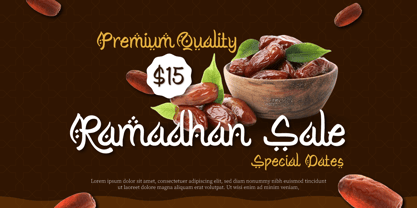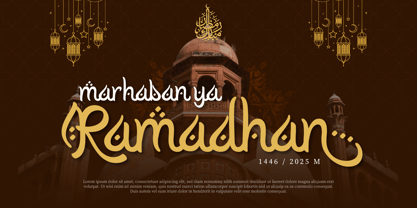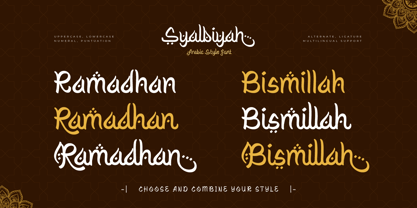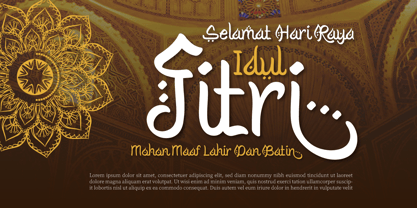
Syalbiyah
by Trabas Kriya
The Syalbiyah Font Family was designed by Murozakul Akhsan and published by Trabas Kriya. Syalbiyah contains 1 styles. More about this family
Syalbiyah - Arabic Style Font is an elegant and beautifully crafted typeface that blends traditional Arabic calligraphy with a modern touch. Its graceful and flowing letterforms make it perfect for branding, invitations, posters, and any project that aims to capture the essence of Arabic culture with a refined, contemporary style. Syalbiyah is designed to be both visually captivating and highly readable, making it suitable for a wide range of applications.
Designers: Murozakul Akhsan
Foundry: Trabas Kriya